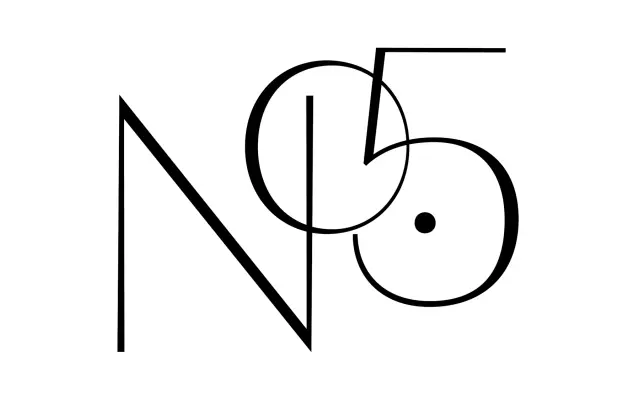
F37 Bergman
F37 Foundry · Hans Möhring, F37 Foundry · 2018
F37's 2018 revival of Hans Möhring's 1931 typeface used by Ingmar Bergman in 1957, with thirty-six styles across three widths.
A serif family from F37 Foundry that revives a 1931 typeface by Hans Möhring, famously used by Ingmar Bergman in 1957 and brought back by F37 in 2018. Thirty-six styles run across six weights and three widths, from standard through narrow to condensed, with matching italics throughout and an F37 Bergman Arabic companion. The reference set sits in mid-twentieth-century European cinema and graphic design, supporting cultural identities, hospitality, editorial covers and brand systems that want a serif with a strong film and modernist accent.
F37 describe Bergman as designed by Hans Möhring in 1931, used by Ingmar Bergman in 1957 and revived by F37 in 2018, drawn across standard, narrow and condensed widths with an Arabic companion.